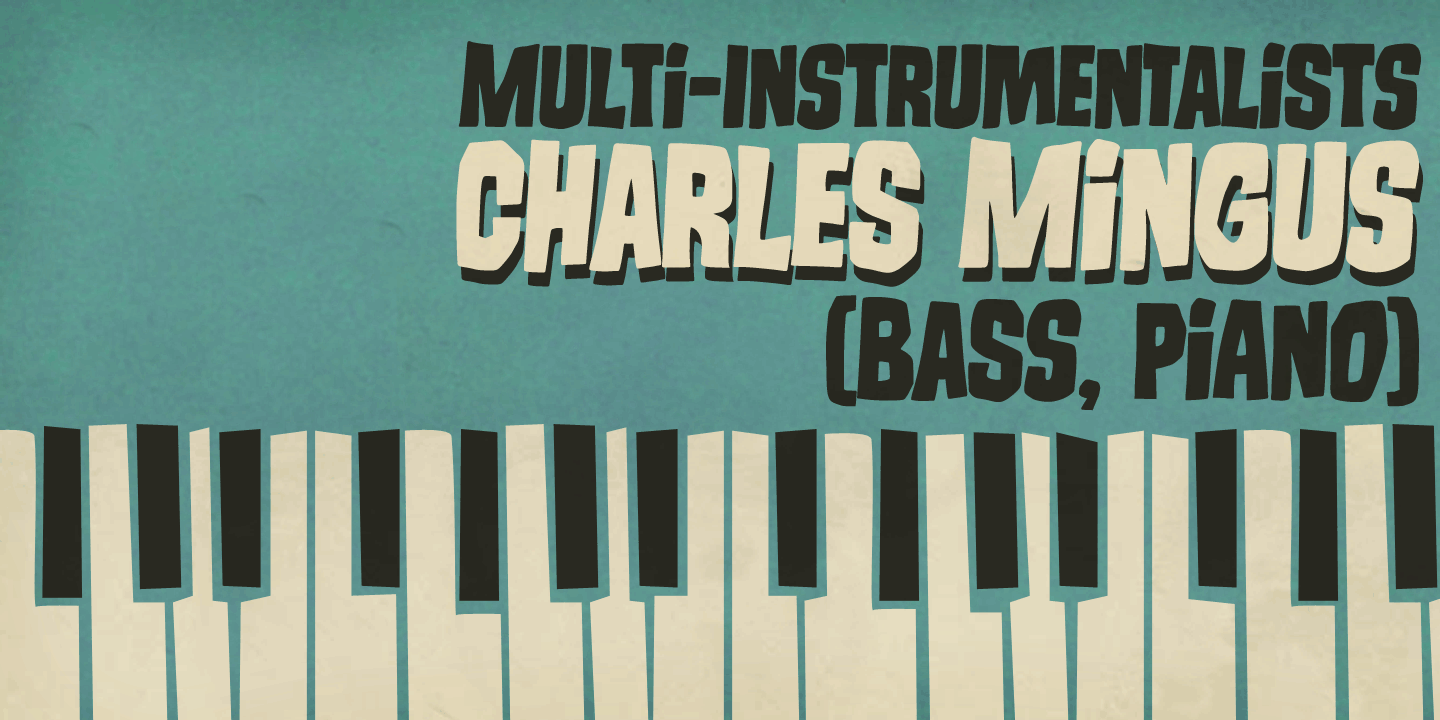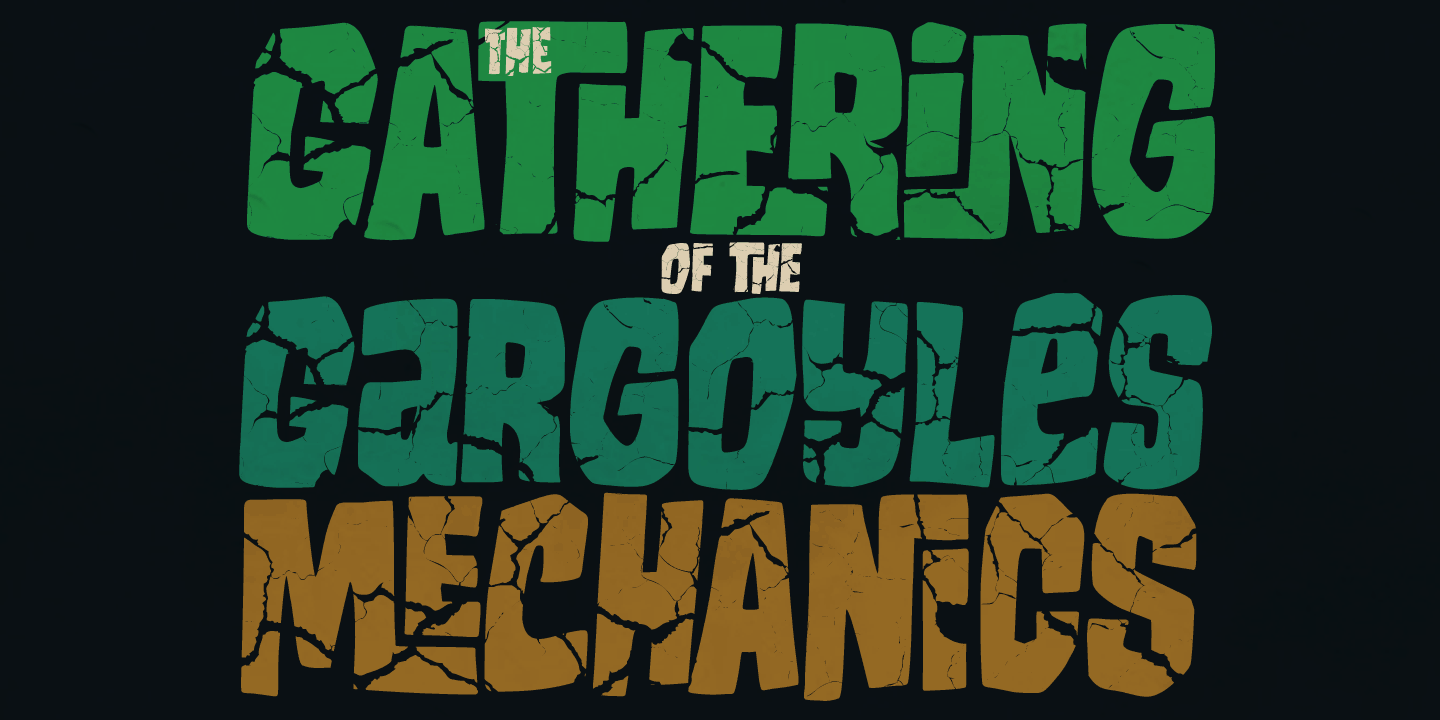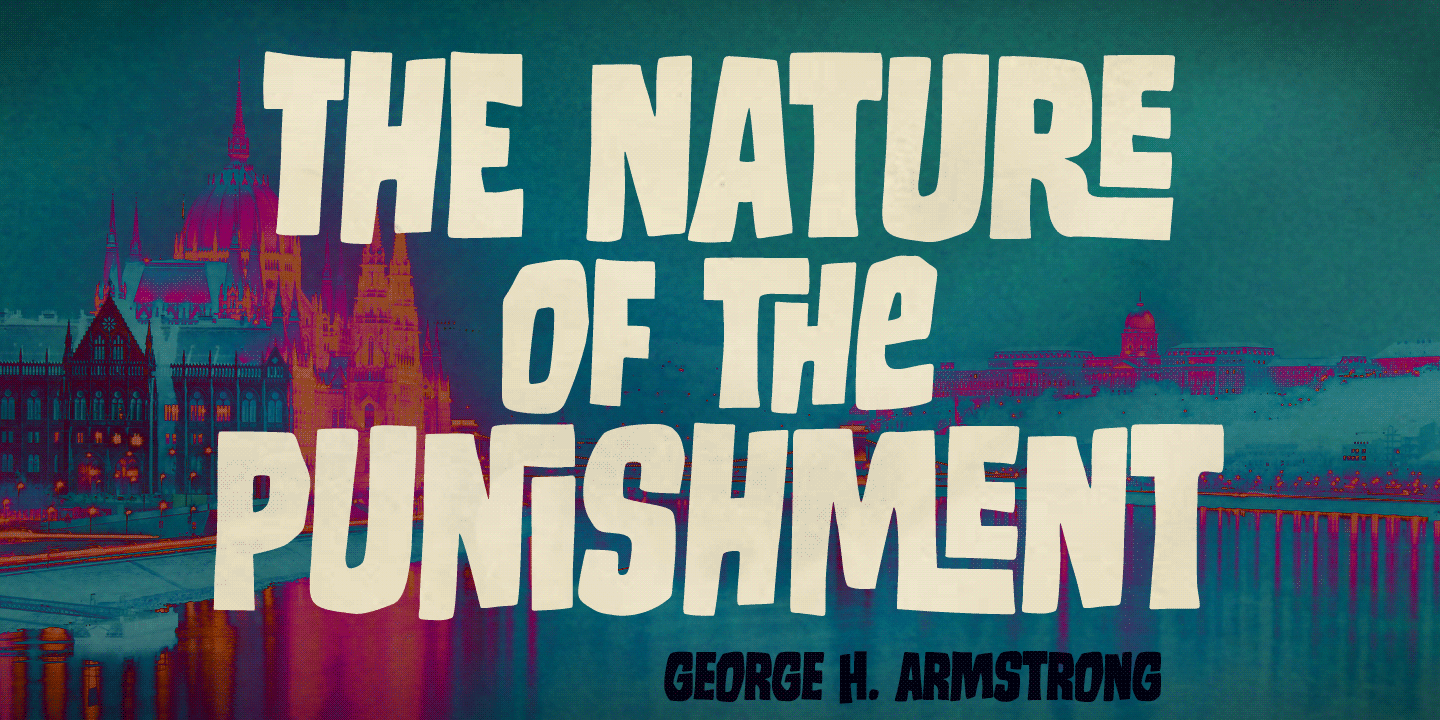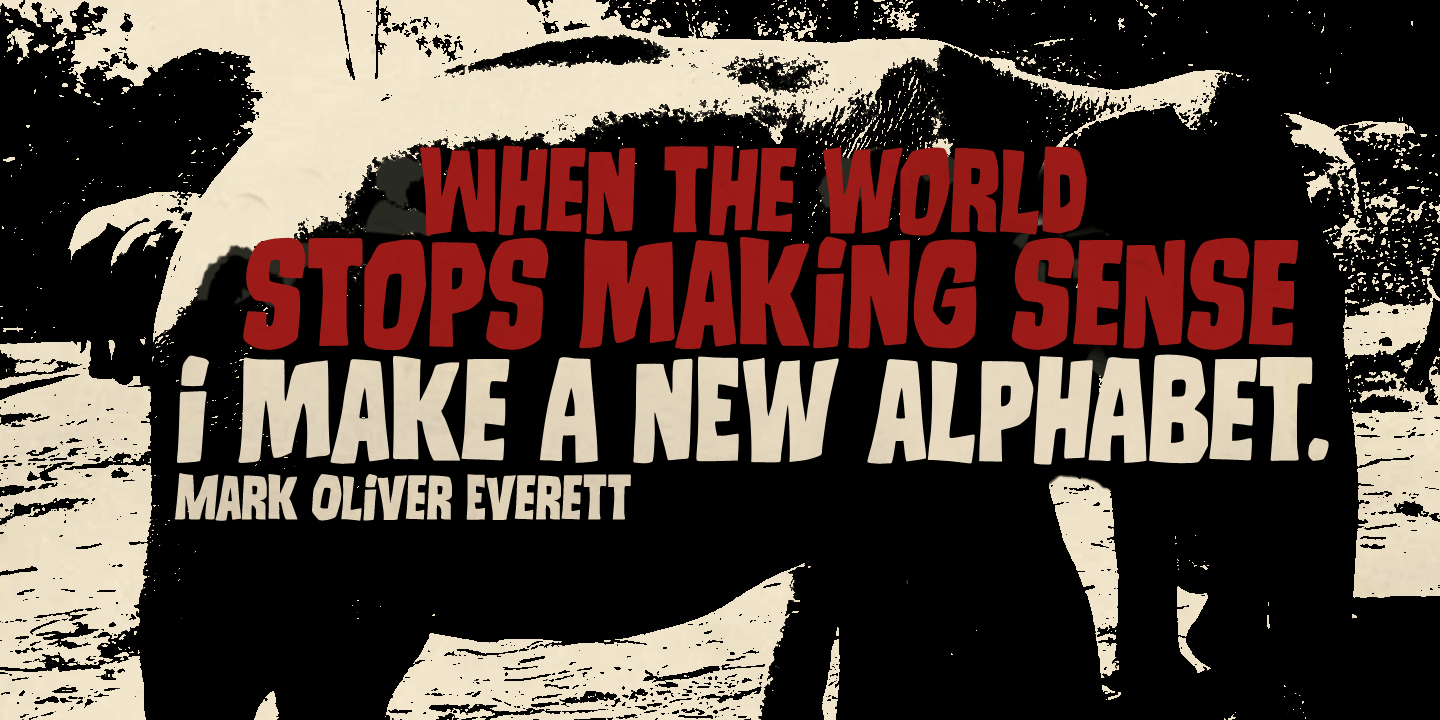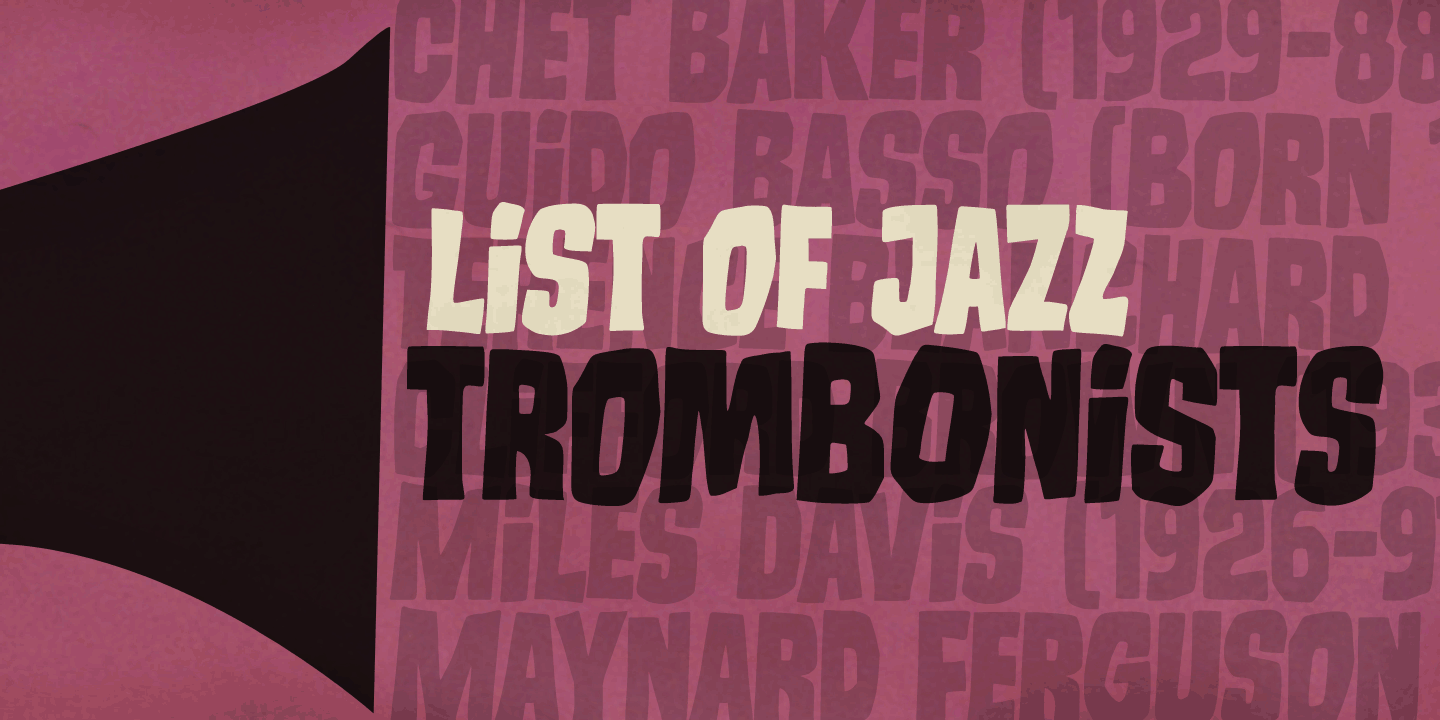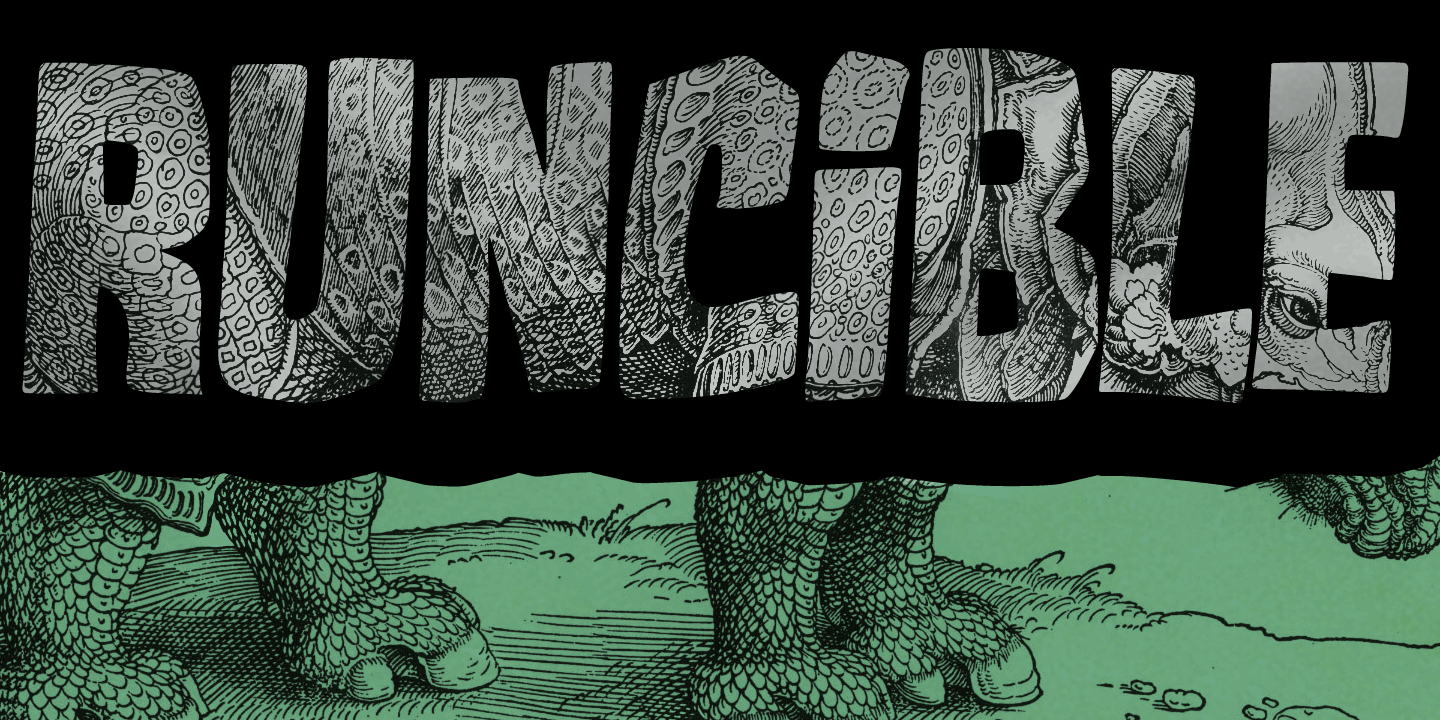
About the Runcible Font
Runcible Font
About Runcible Font Family A runcible font for dolomphius designs. I do not believe you won’t give it a try ! Designers: Erica Jung, Ricardo MarcinPublisher: PintassilgoPrintsFoundry: PintassilgoPrintsDesign Owner: PintassilgoPrintsMyFonts debut: May 20, 2013 Runcible